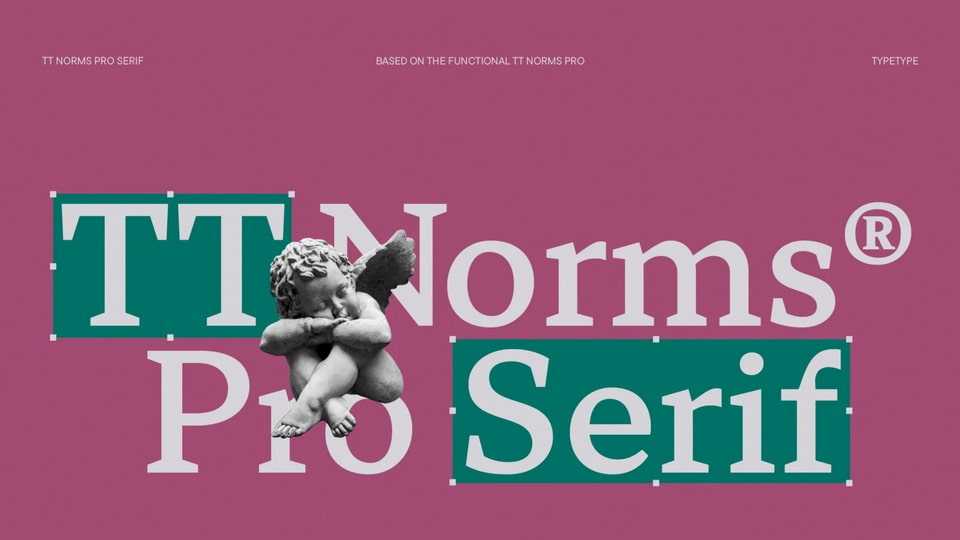
Download TT Norms® Pro Serif font, a functional serif based on our studio’s main bestseller—the versatile sans serif TT Norms® Pro. Together, they form an ideal font pair.
Designer: Yulia Gonina